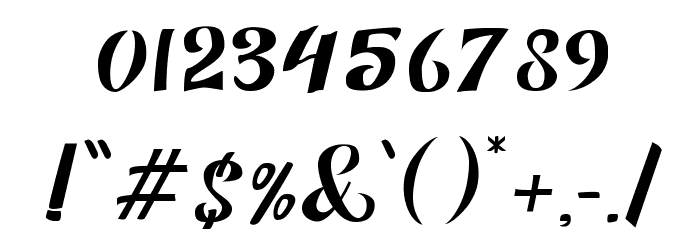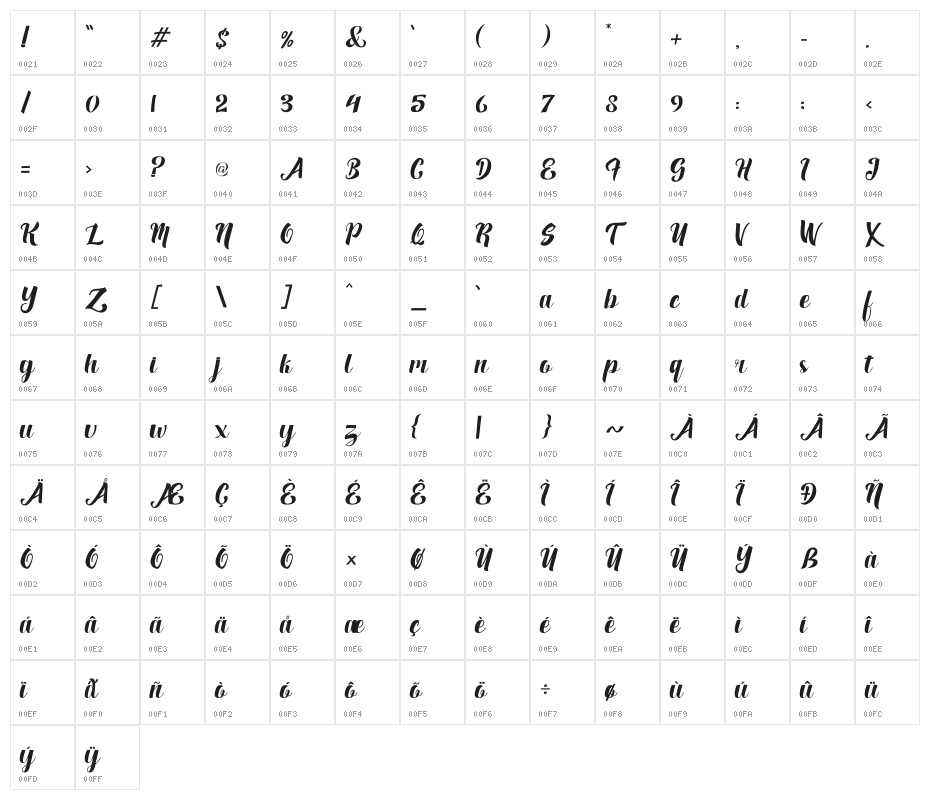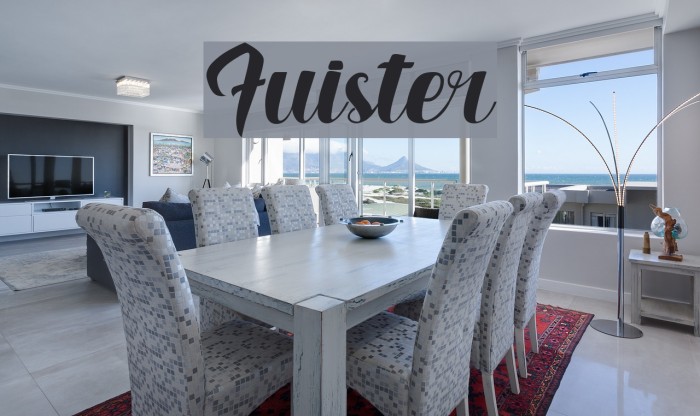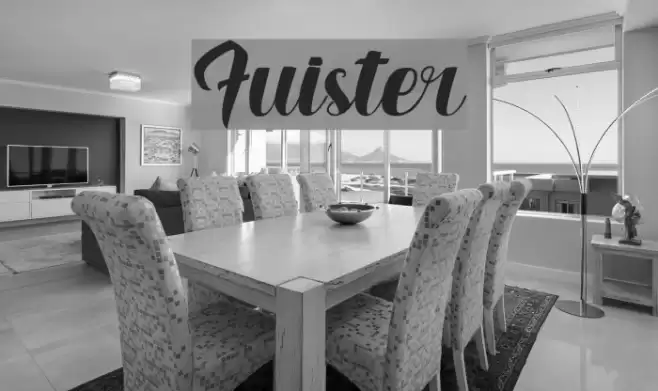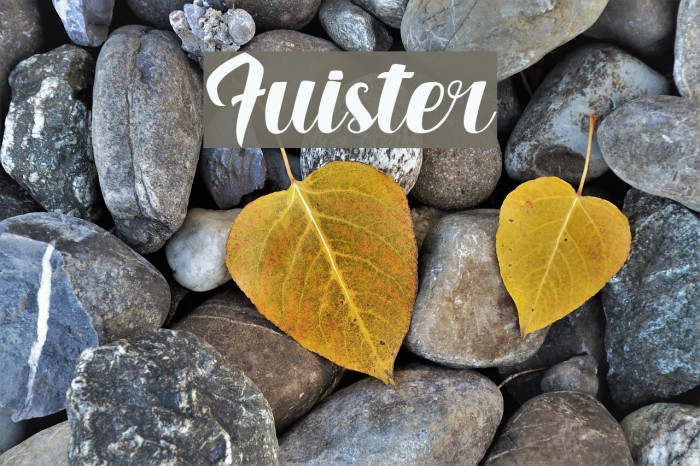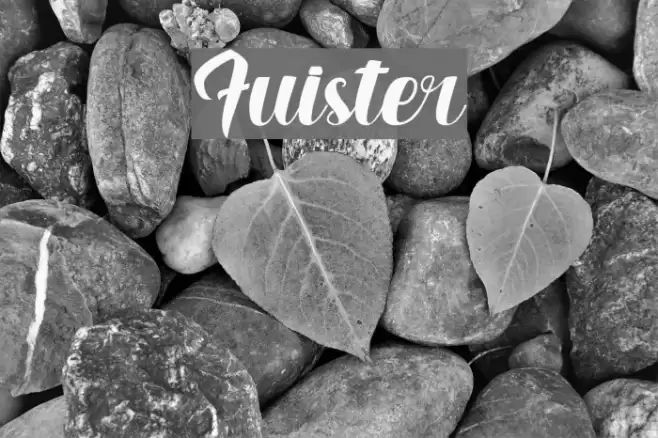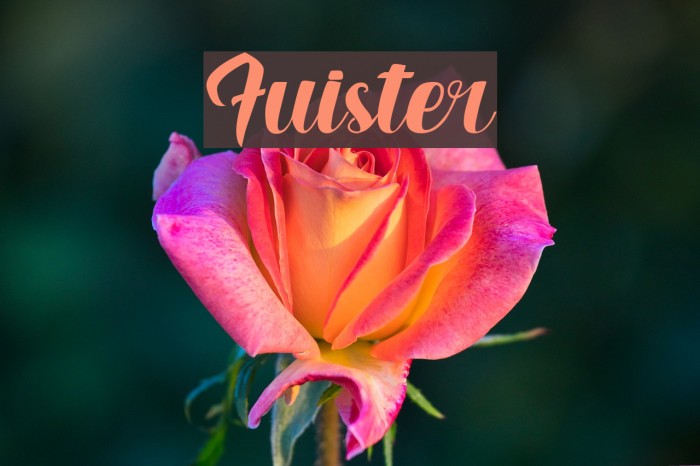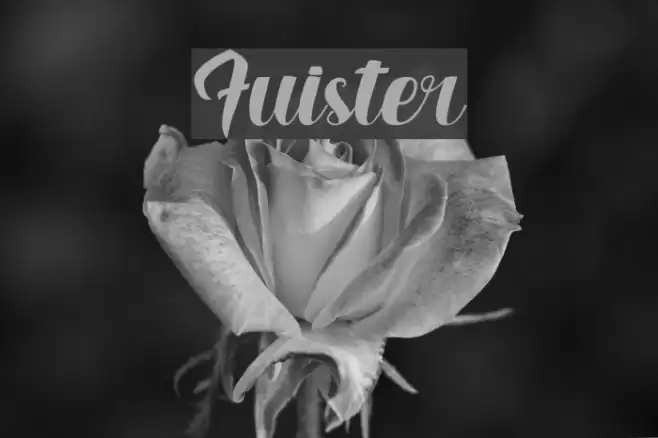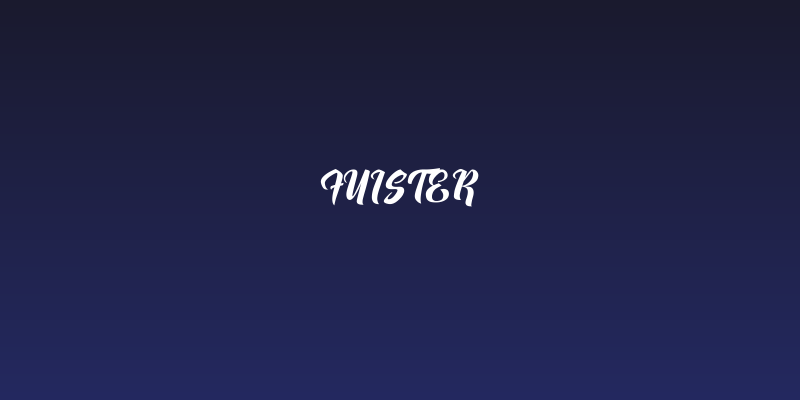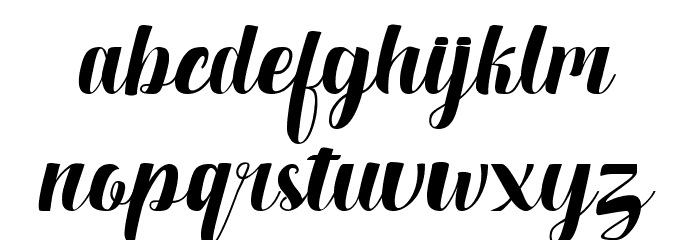
Fuister Font
Fuister Description
This font features a bold and dynamic script style with a modern flair. The uppercase letters exhibit a flowing, cursive design with elegant curves and a slight slant, giving a sense of movement and fluidity. The lowercase letters maintain this cursive style, with some characters like 'g' and 'y' having distinctive loops that add to the font's charm. The numerals are bold and slightly condensed, ensuring readability while maintaining the overall aesthetic. Special characters are designed to complement the letters, with a consistent stroke width and style. This font's boldness and unique character make it suitable for eye-catching designs.
| Proposed Projects | Ideal for branding, logo design, invitations, and headlines where a touch of elegance and modernity is desired. |